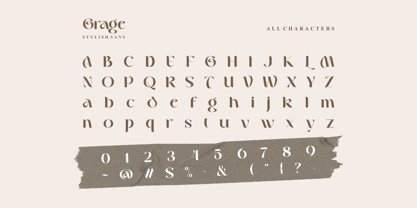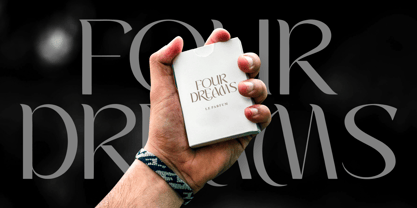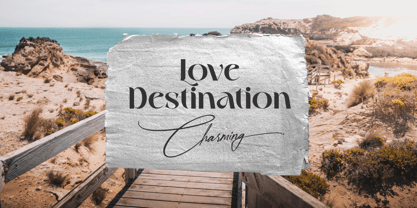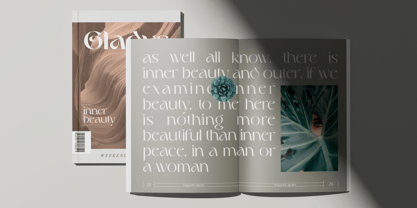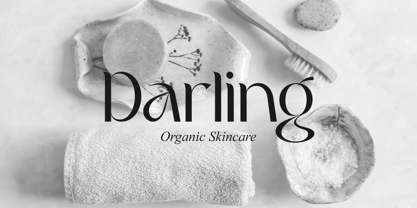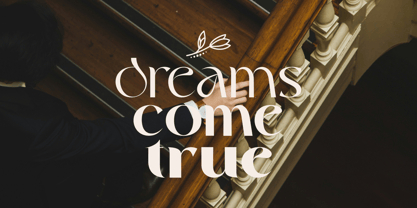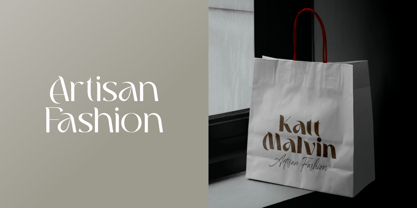
Grage
by Ergibi Studio
The Grage Font Family was designed by Riyadh Rahman and published by Ergibi Studio. Grage contains 3 styles and family package options.
Grage Stylish Sans. This font has unique and, make it great to be used for modern and minimalistic design theme. The unique ligatures on serif makes this typeface cool and stands out rather than the regular serif font, perfectly for headlines, logos, posters, packaging, coffee shops, restaurants, magazine’s headers, signs or gift/post cards,cafe’s and weddings or any type of advertising purpose.